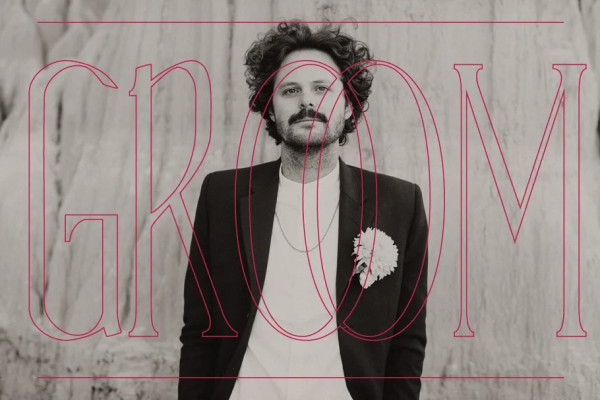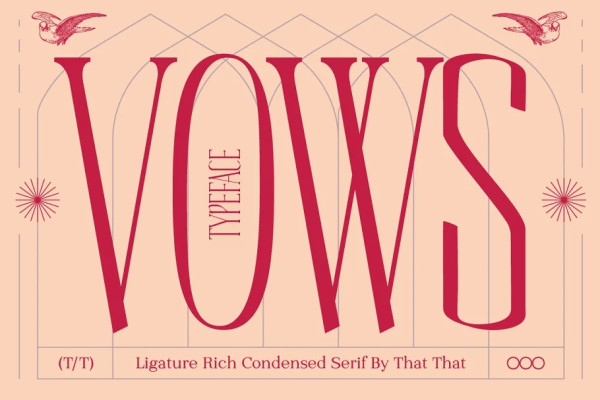
Vows Font
Vows Font, this elegant condensed serif font is perfect for elevating the feel of any design. It is tall and slender making its presence known without being overbearing. It is perfect for logos magazines fashion wedding invites and anything else you can imagine. This modern unique type is sure to turn heads.